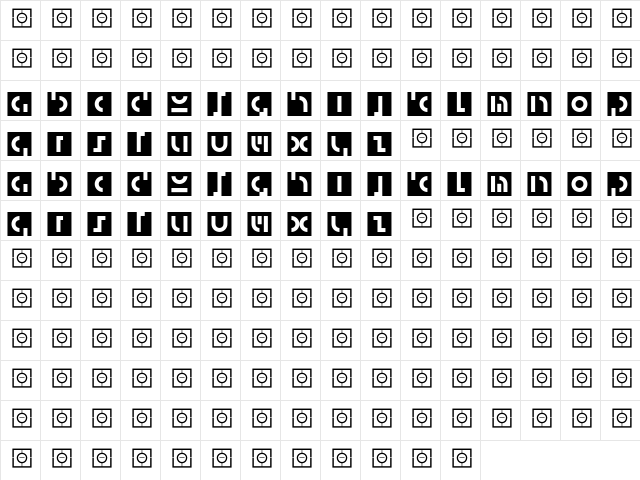
AlphaBloc Stencil
| Style | Stencil |
Design Context for AlphaBloc Typeface
AlphaBloc borrows the utilitarian aesthetic of stencil lettering, with its characteristic cutaways and no-frills construction lending an industrial edge.
A strong choice for packaging that needs edge, warehouse aesthetics, and rough-and-ready visual identities.
Pro Tip: Use AlphaBloc at large sizes on packaging, posters, or apparel where the stencil cutaways read clearly. Avoid small sizes where those gaps become visual noise.